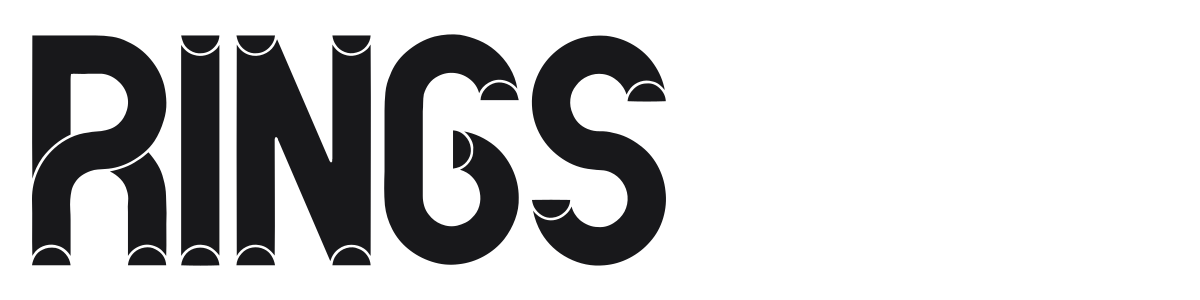
Rings
Rings is a heavy display font built around a single striking idea: circular ring cutouts punched through every vertical stroke at regular intervals. The result is bold, blocky uppercase characters that feel segmented, almost like sections of pipe or chain links. It works best large, where the circular detail pattern reads clearly and creates strong visual texture.